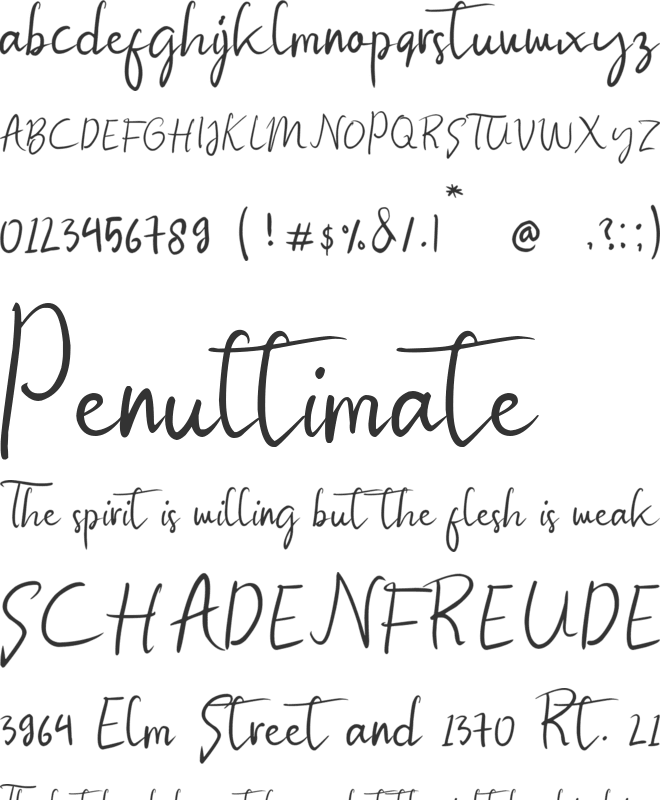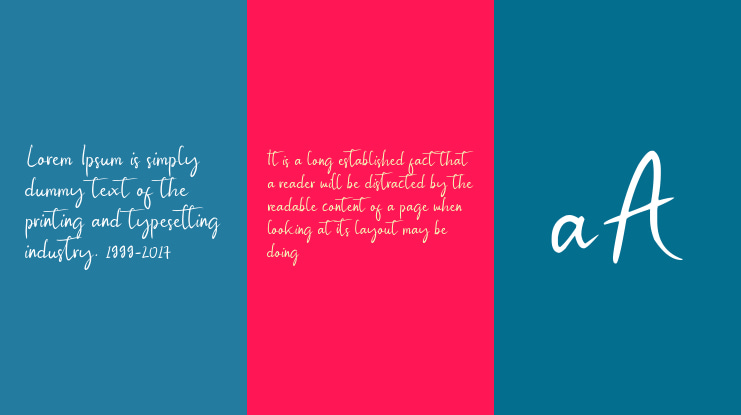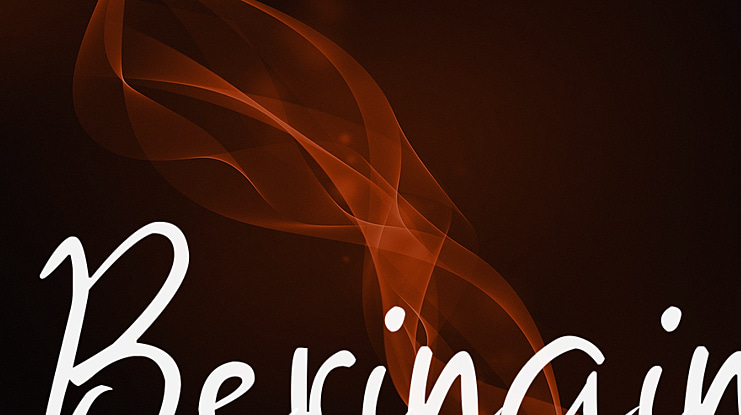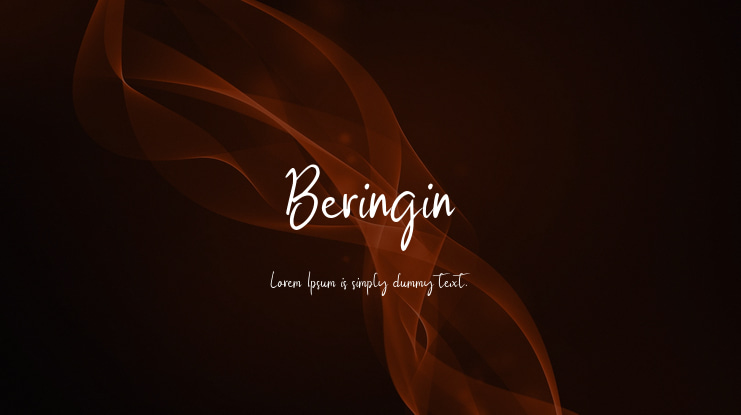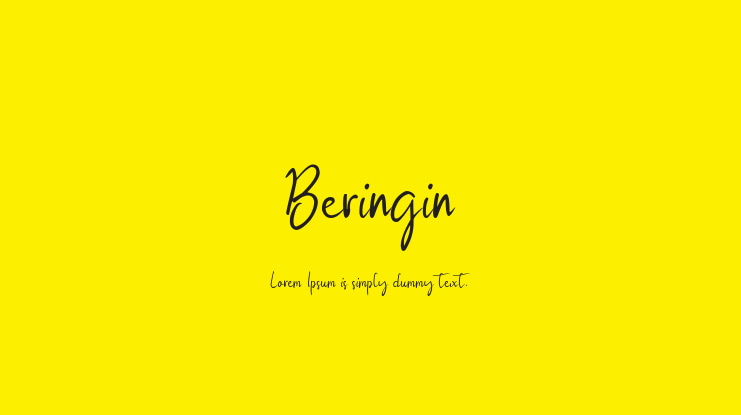
Beringin Font
beringin modern handwriten font is a beautiful and elegant font suitable for use for logos, branding, stationary, wedding invitations, watermarks, promotions, quetes etc. Hurry get this font and make a different design with this font. Have a nice day.